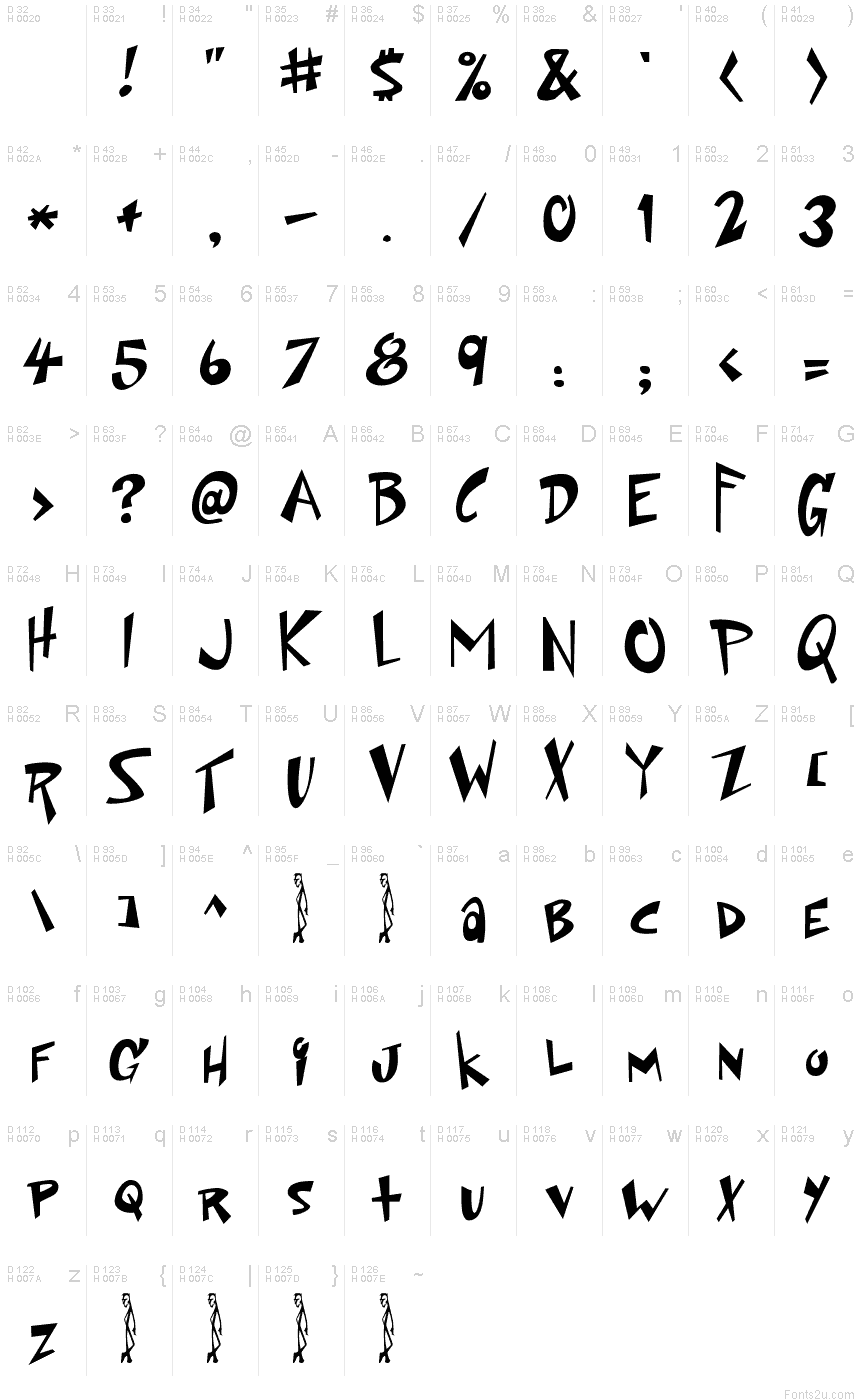
Space Up Yer Life, a free comic display font by Mike Hind of Stickfonts, leans into late-90s cartoon energy with warped, bouncy letters and a loose hand-drawn attitude. The shapes swing between broad swoops and pinched joins, so the font feels mischievous and slightly off-kilter rather than neat or orderly.
It fits poster headlines, zine covers, game title cards, kids' event flyers, and cheeky band merch where a free font with this much bounce can carry the whole mood. Because the letters tilt and stretch in different ways, it also works well for short branding, bold cover lines, and oversized drop-in words that need a playful, unruly voice.